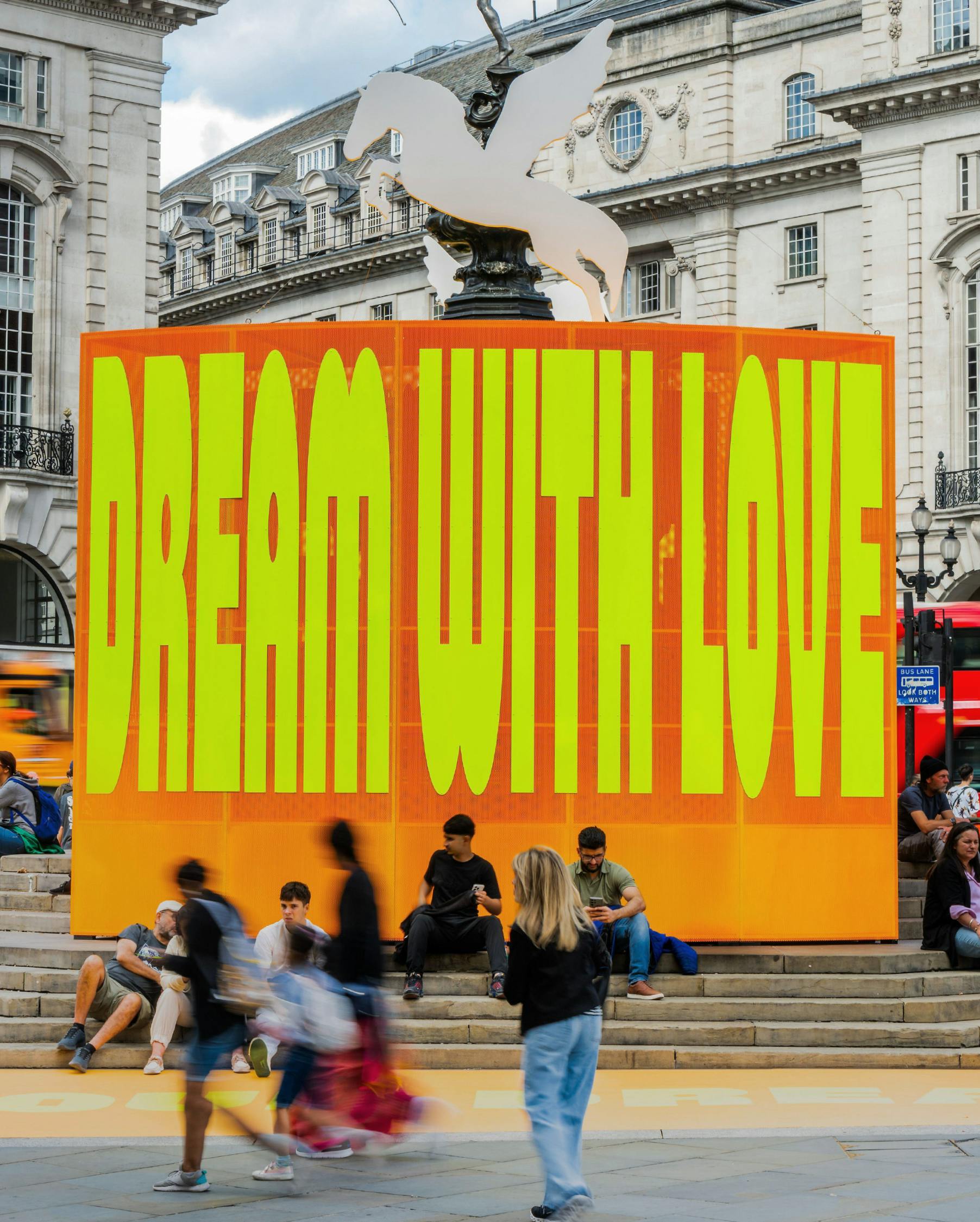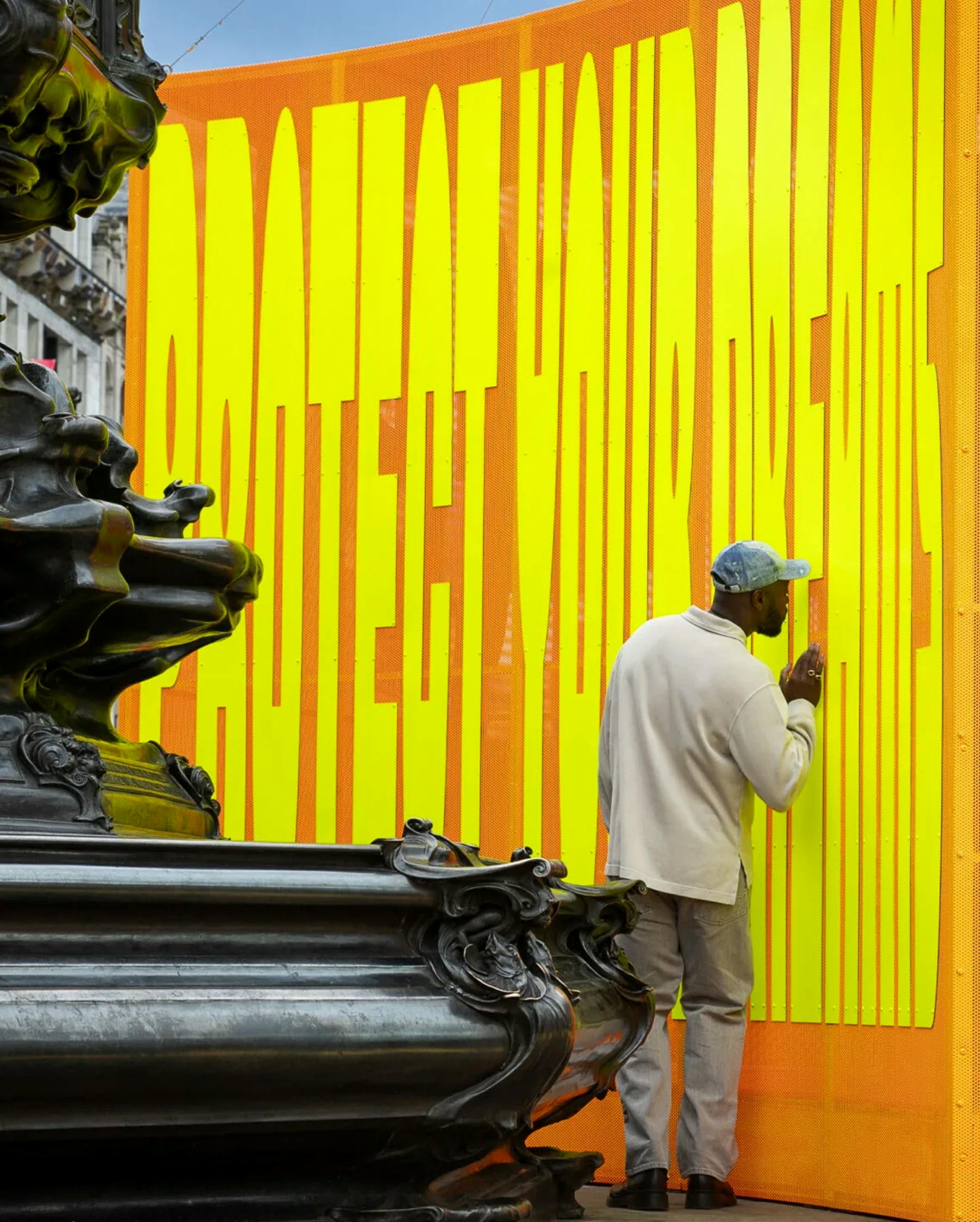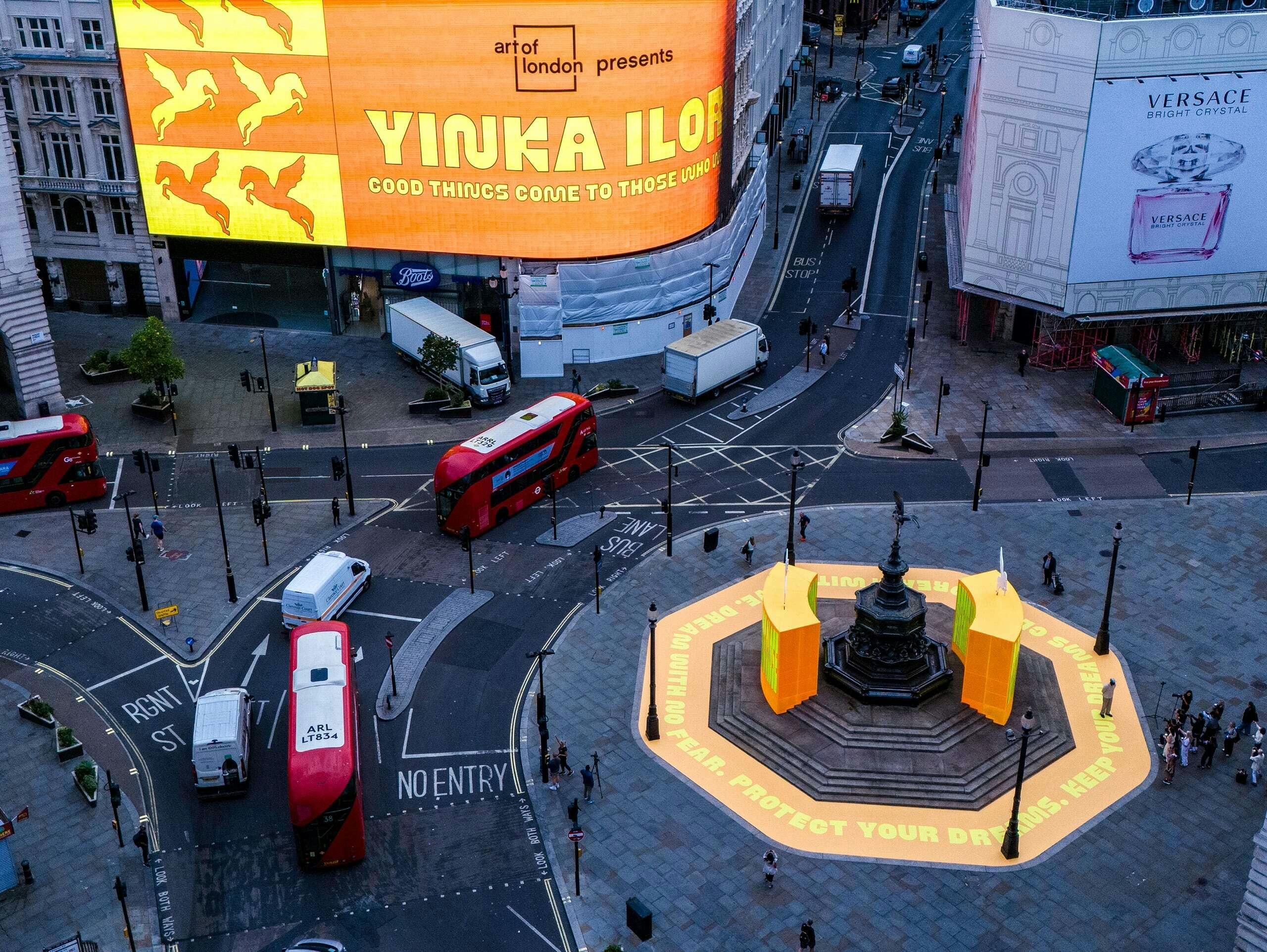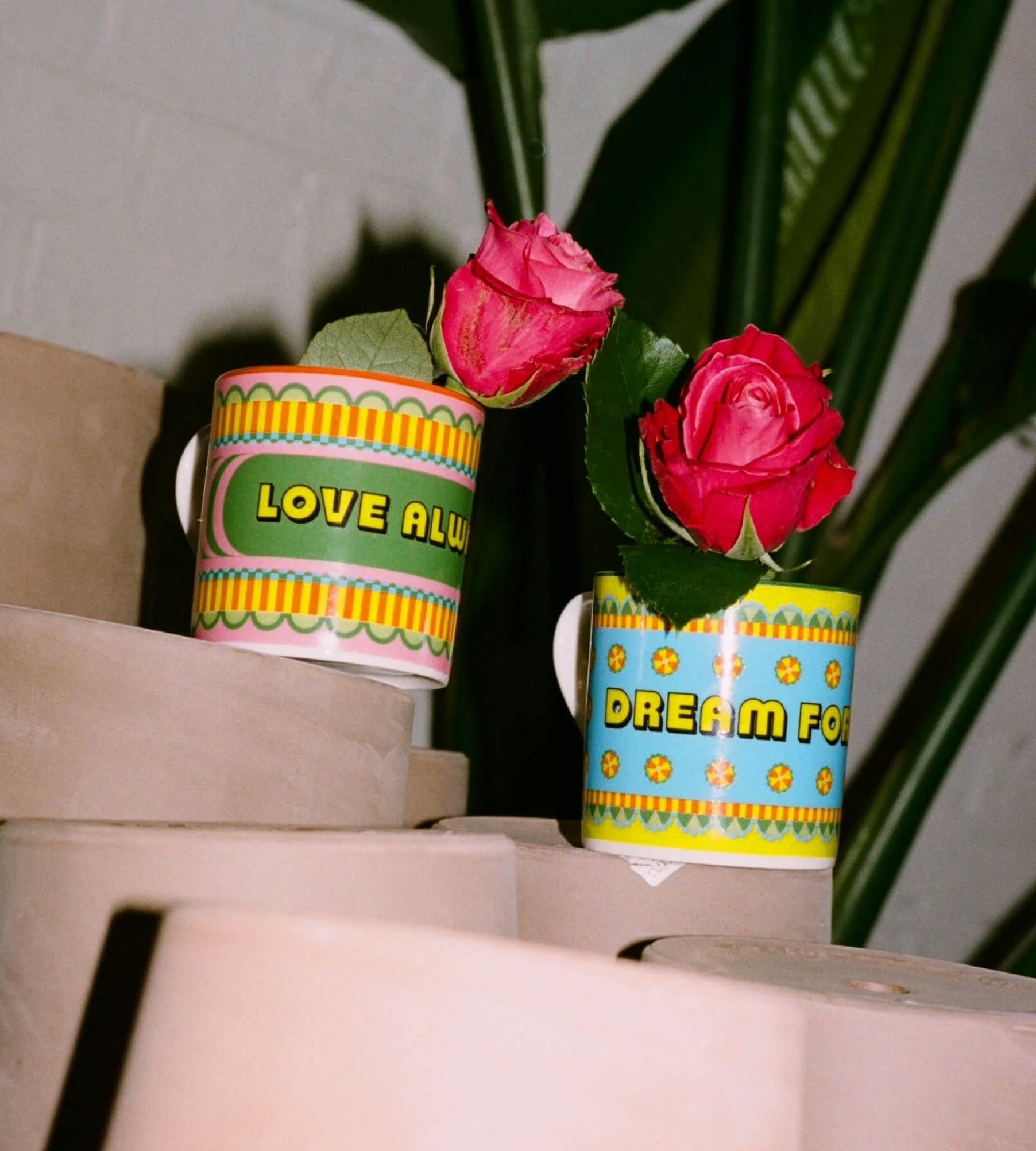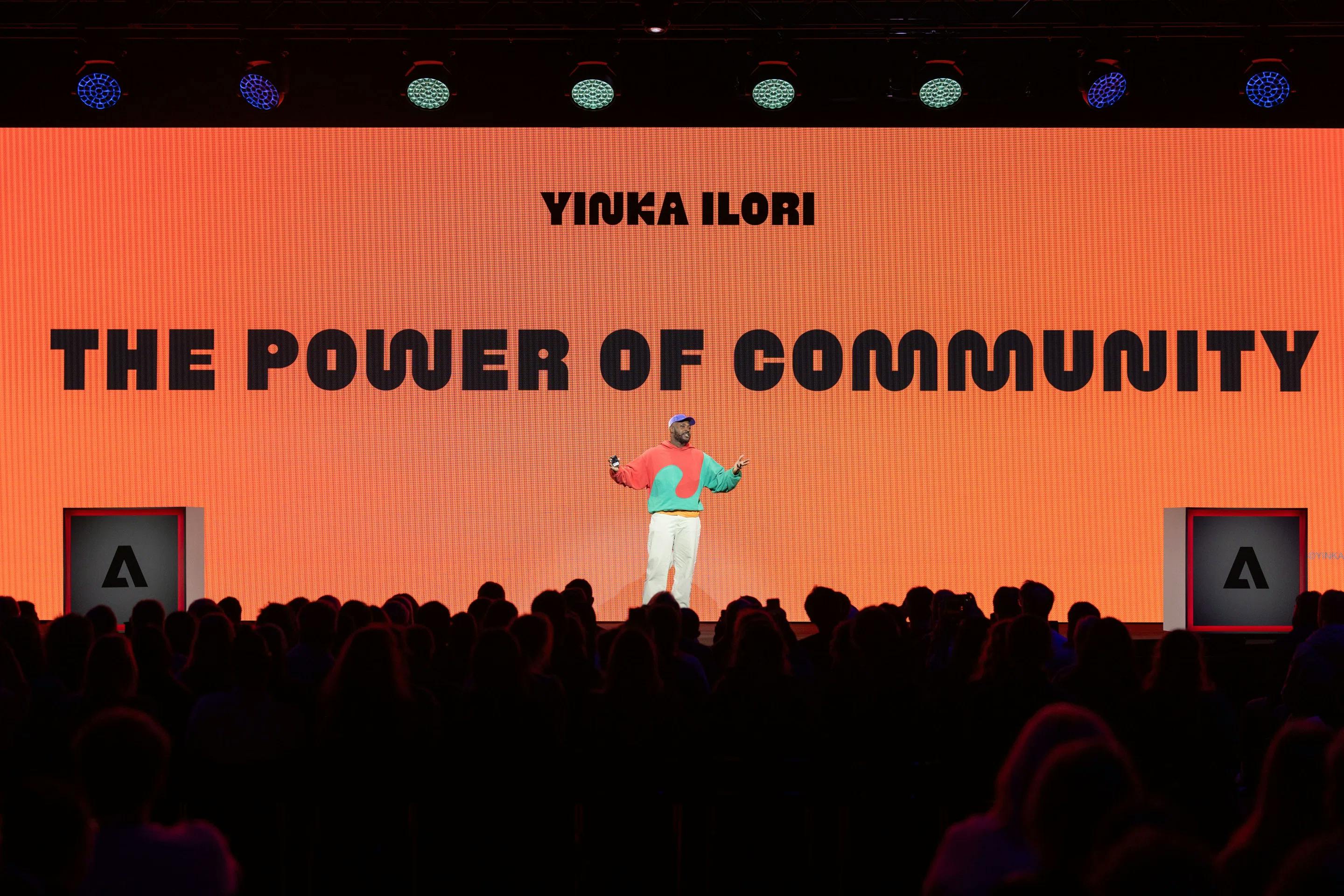
BRITISH STANDARD TYPE was commissioned by YINKA ILORI MBE, the renowned British-Nigerian artist and designer, to create Yinka Sans, a bespoke two-cut display typeface celebrating his dual heritage and creative ethos. Yinka Sans Ultra and Yinka Sans Shadow encapsulate Ilori’s vibrant visual language, balancing inclusivity, joy, and a bold aesthetic with geometric play.
Yinka Sans was designed with creative expression in mind, featuring stylistic alternates and intricate detailing to enhance functionality. These features allow it to adapt seamlessly to Ilori’s multi-faceted practice, enabling users to explore tone, hierarchy, and emphasis. Yinka Sans invites experimentation while staying true to Ilori’s distinctive aesthetic vision.
BRITISH STANDARD TYPE developed Yinka Sans in collaboration with Ilori and his team, drawing on architectural motifs, Nigerian folk vernacular, contemporary culture, and rhythmic musical patterns to create a dynamic, personal, and joyful typographic system. Its construction balances rounded and angular forms, embodying duality and connection, making it both a bold display tool and a playful, expressive element across diverse mediums.
Yinka Sans is a core element of YINKA ILORI’s visual identity, supporting his installations, exhibitions, and communications. Its dynamic dual styles—Yinka Sans Ultra and Yinka Sans Shadow—provide a versatile toolkit for storytelling, amplifying Ilori’s message of joy, inclusivity, and cultural celebration. The typeface exemplifies how custom typography can serve as a powerful tool for creative expression, enabling artists, institutions, and brands to convey their stories with authenticity and impact.
Typeface: Yinka Sans Ultra & Yinka Sans Shadow
Commissioner: Yinka Ilori MBE
2 Styles: Ultra & Shadow
Coverage: Latin-A Encoded
Classification: Geometric Sans Serif